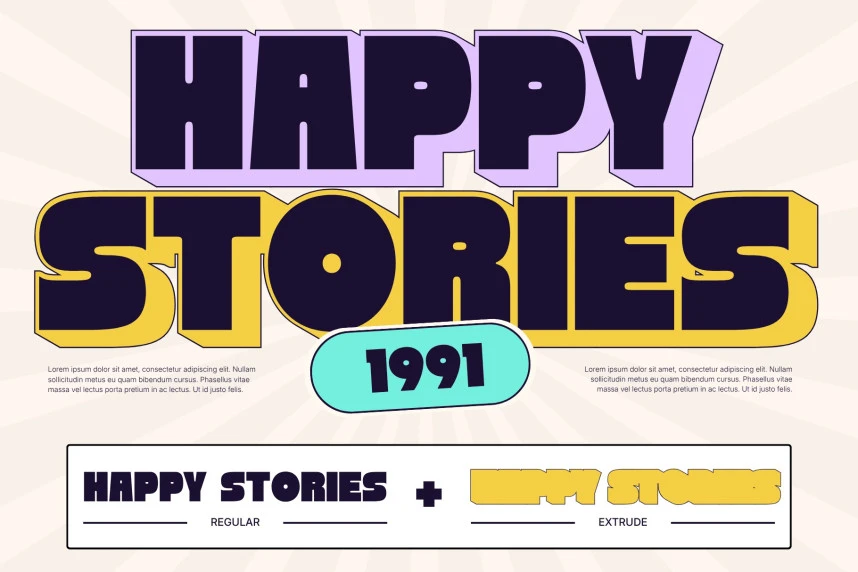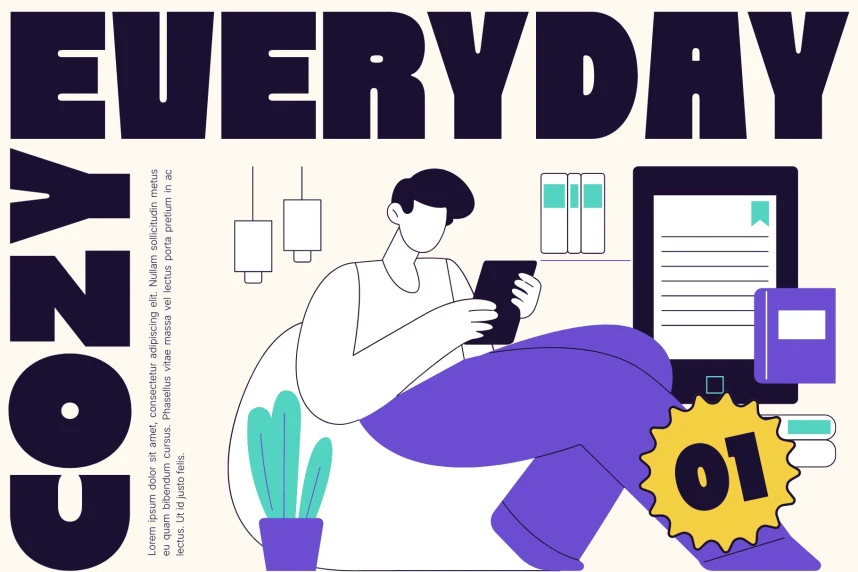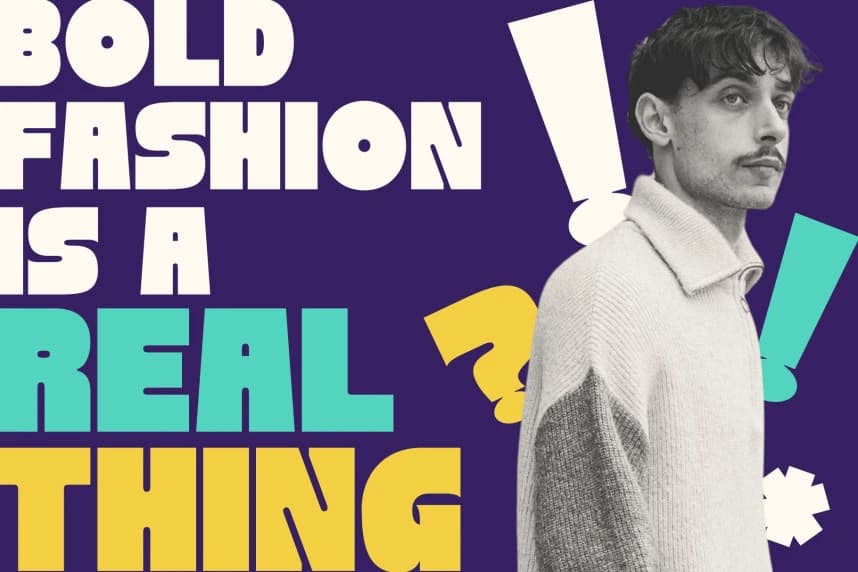
Nebies Retro Font
Nebies Retro Font is a bold, playful food font designed to bring nostalgic flavor into modern branding. With its chunky letterforms and smooth curves, it captures a vintage vibe that feels both fun and appetizing.